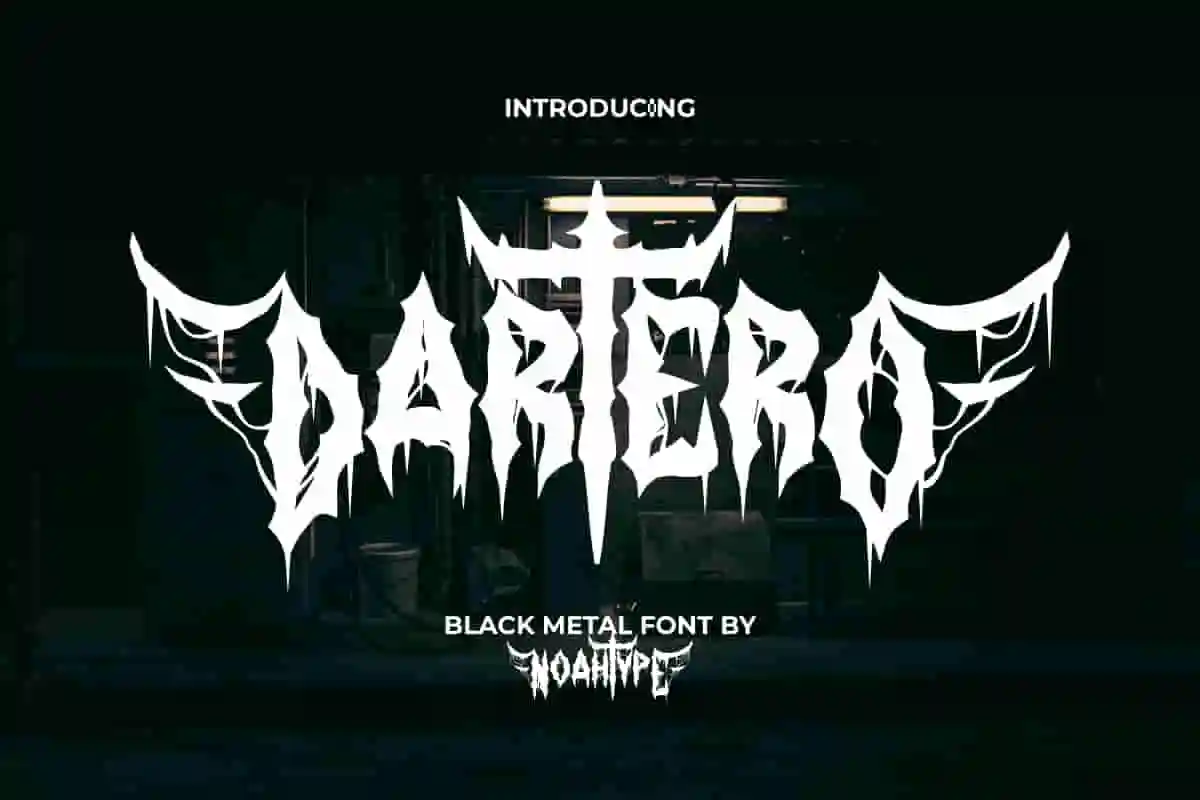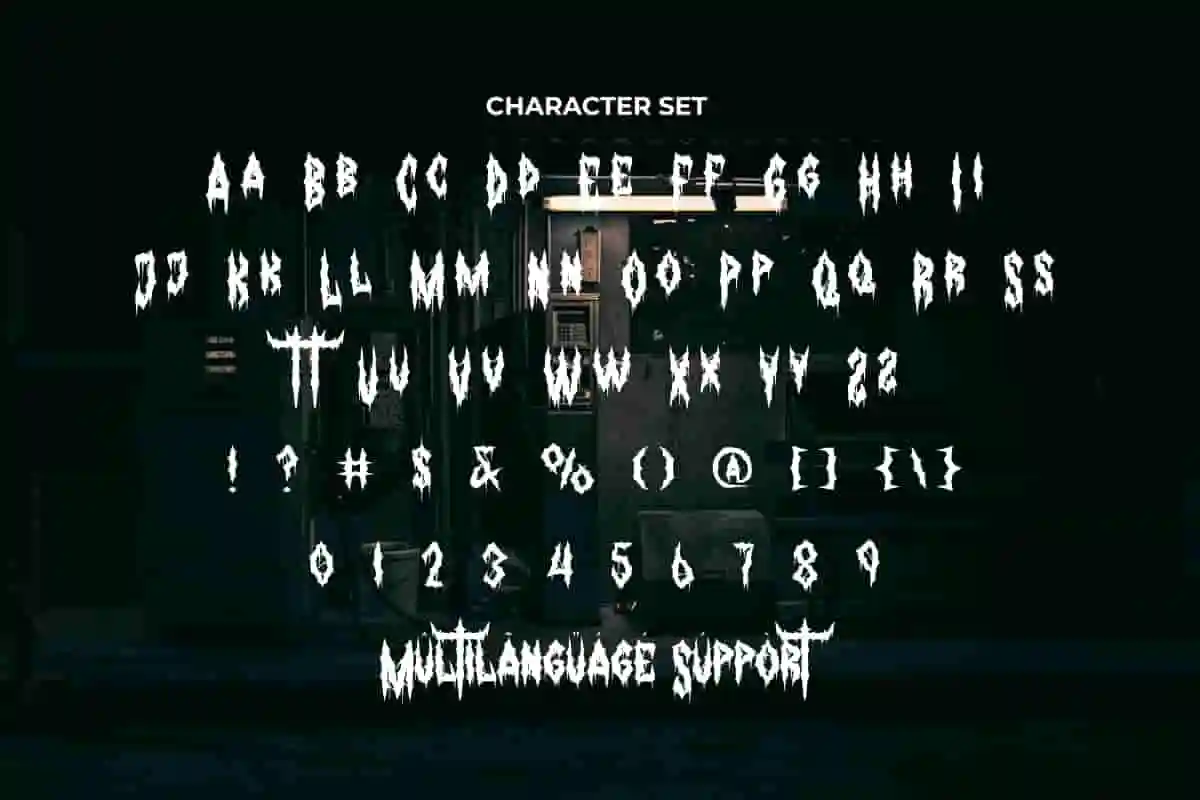
Dartero Font is a blackmetal hardcore band font with strong mysterious vibes by NoahType. This font has a creepy look with sharp character shapes decorated with spiderweb-like strands of rope. It will be perfect for any designs, such as signage, label, brand image, cover, custom design, invitation, marketing material, menu, poster, printing, product packaging, quotes, website, and many more!
Dartero Font includes full set of ALL CAPS for Uppercase and Lowercase Basic Characters, Numerals, Punctuation, Symbol, and Alternate character. This font will make your design amazing and also a perfect choice for many industries, such as game, movie, music, accessories, advertising, art, café, event or festival, fashion, printing, publishing, etc.